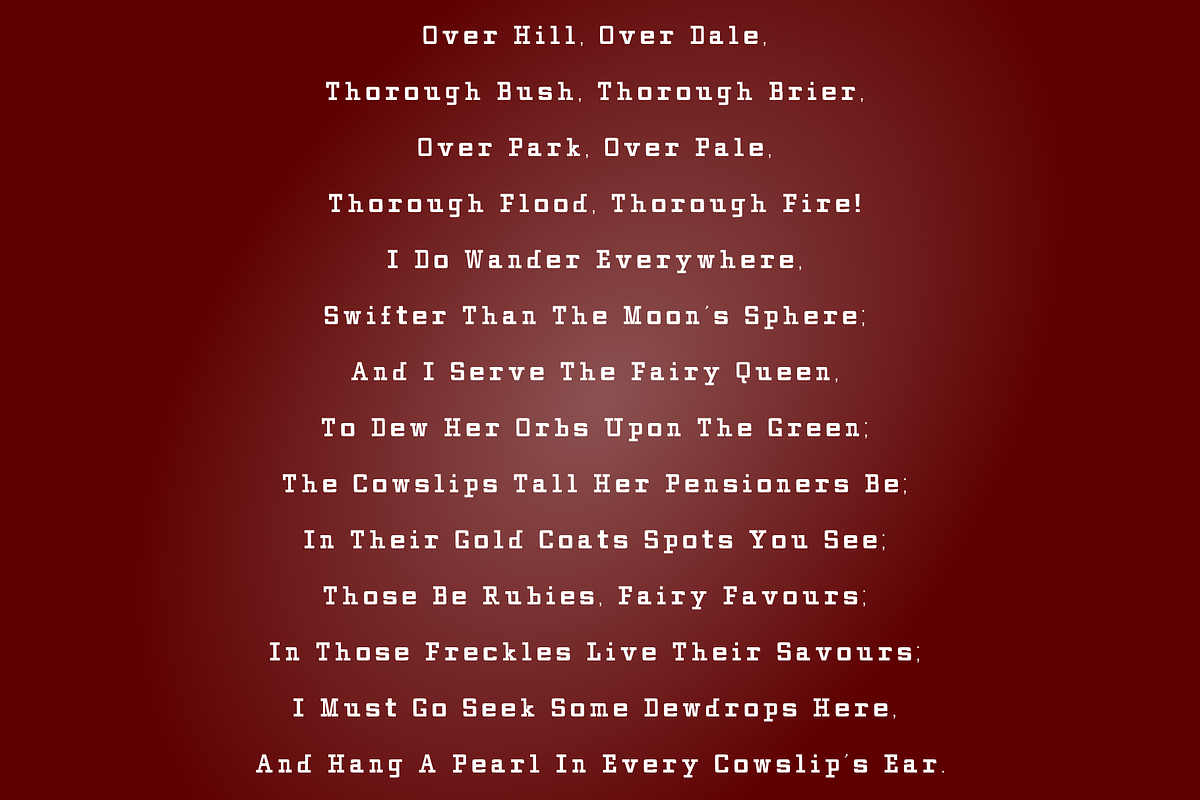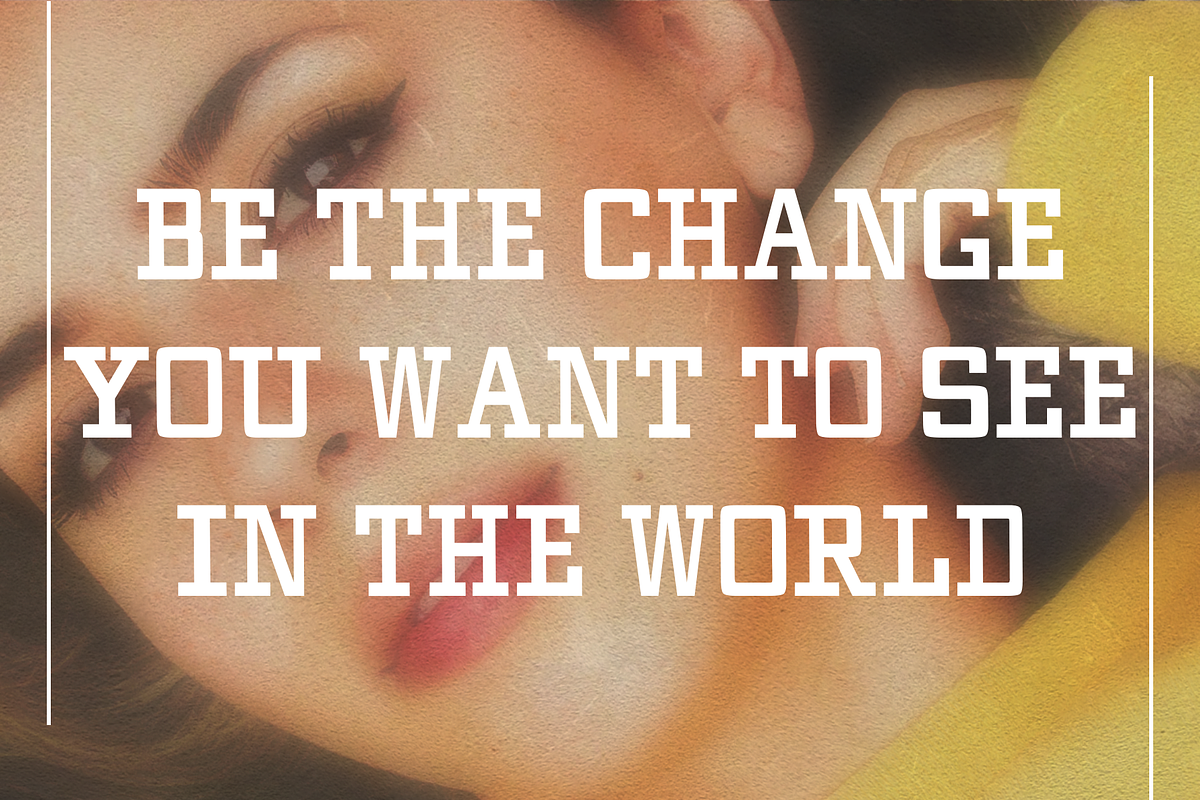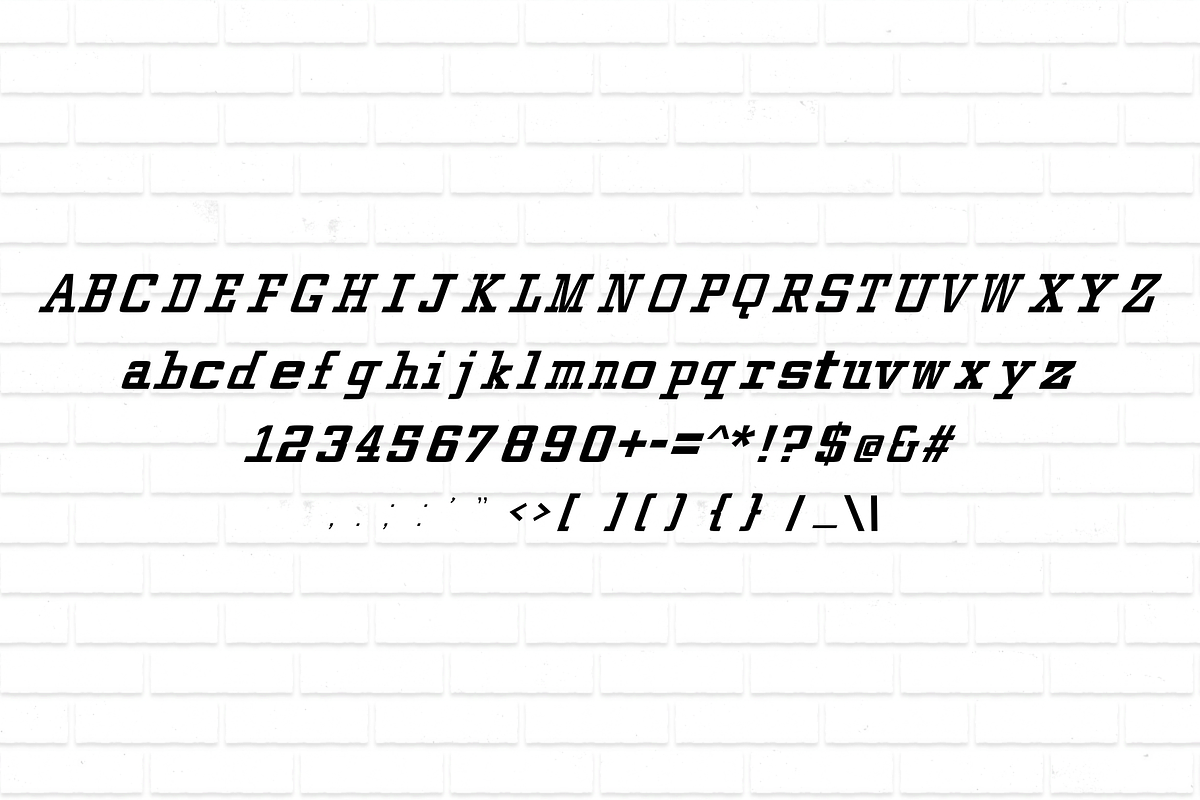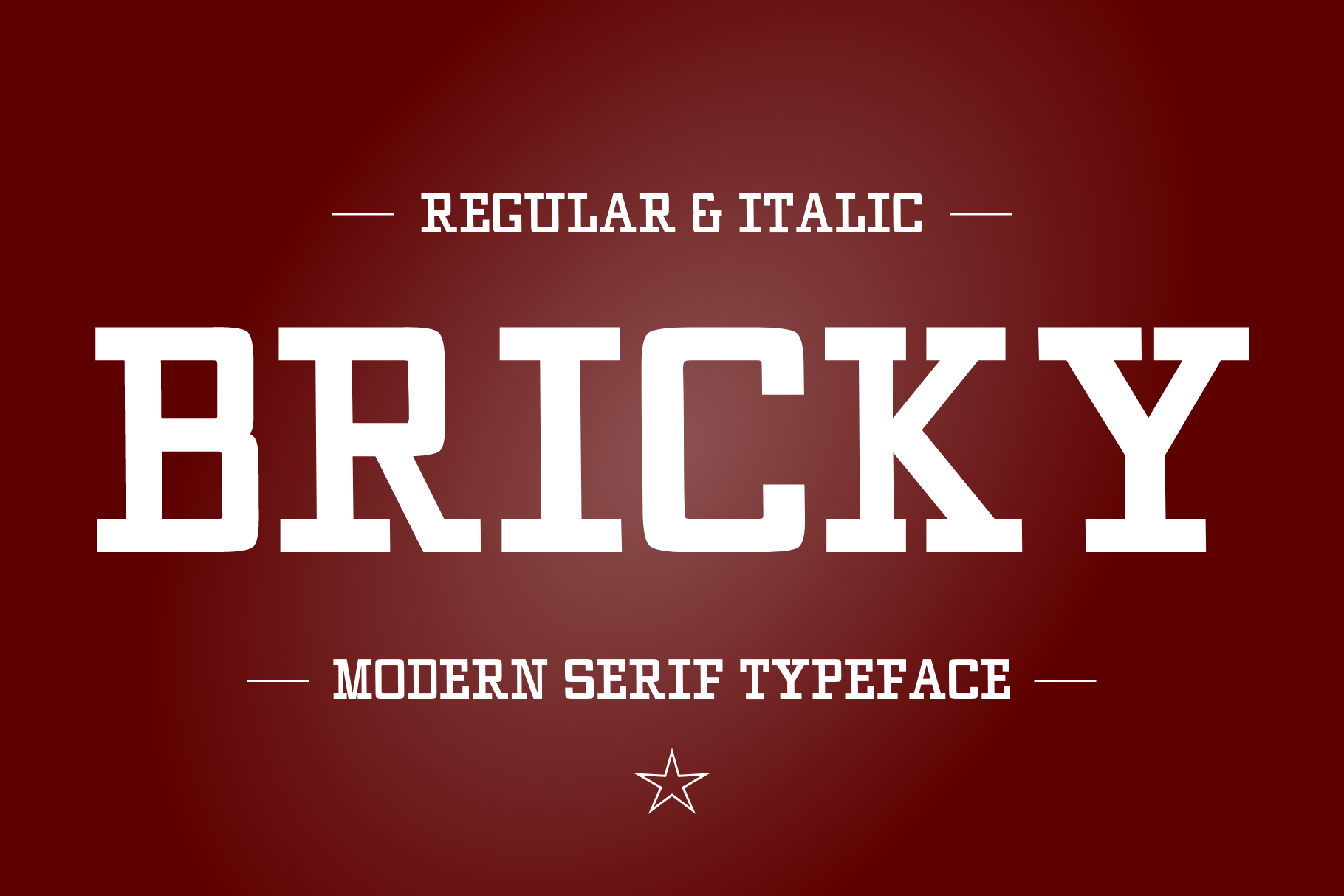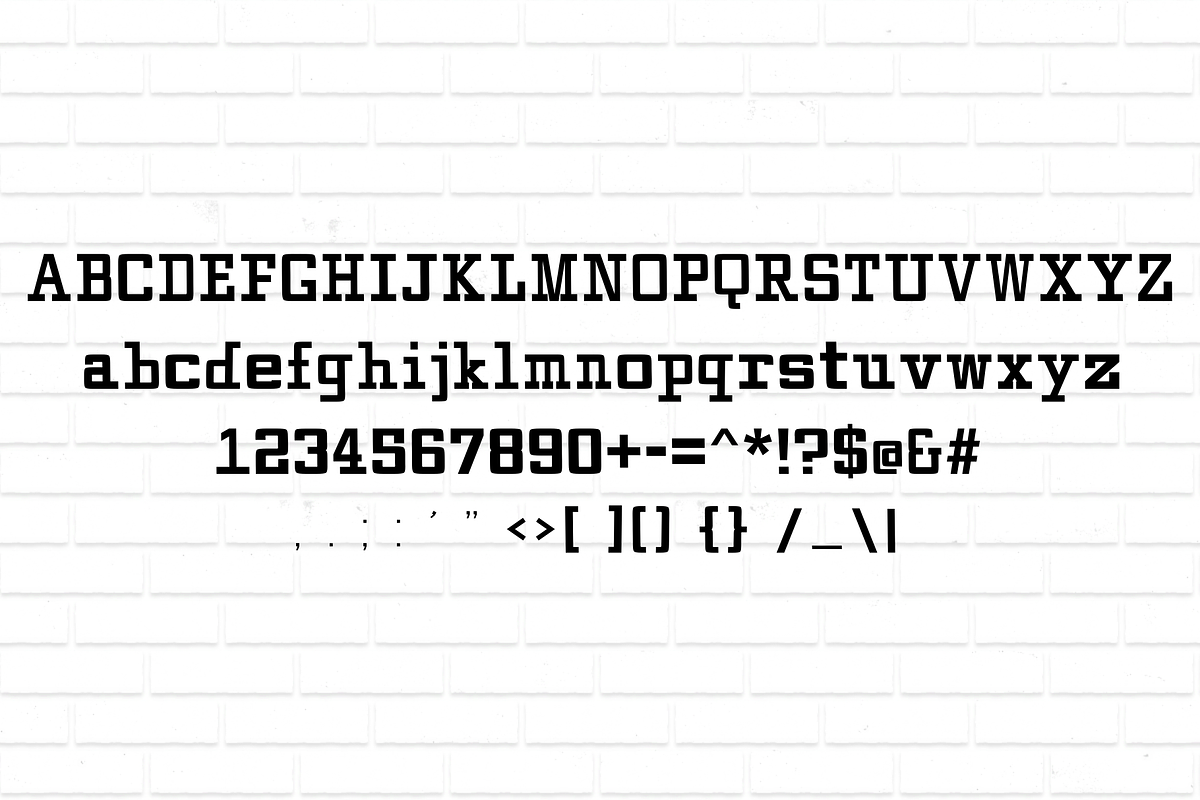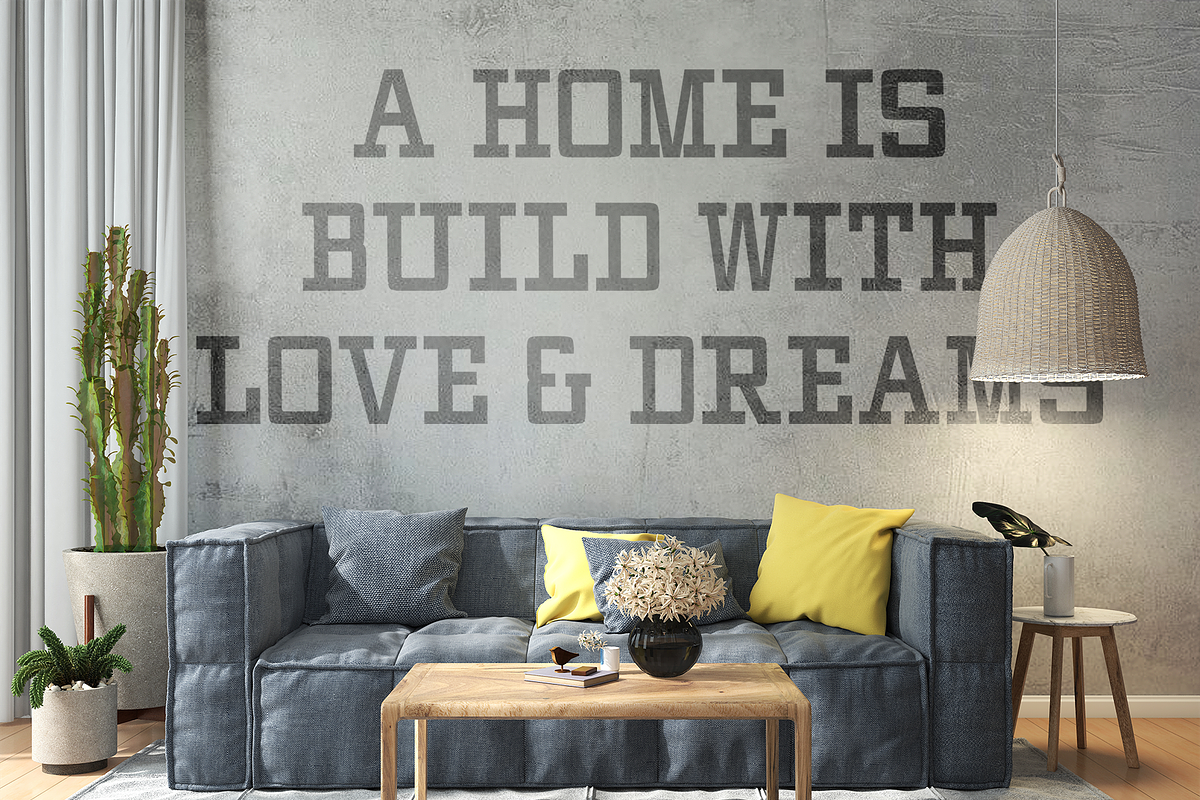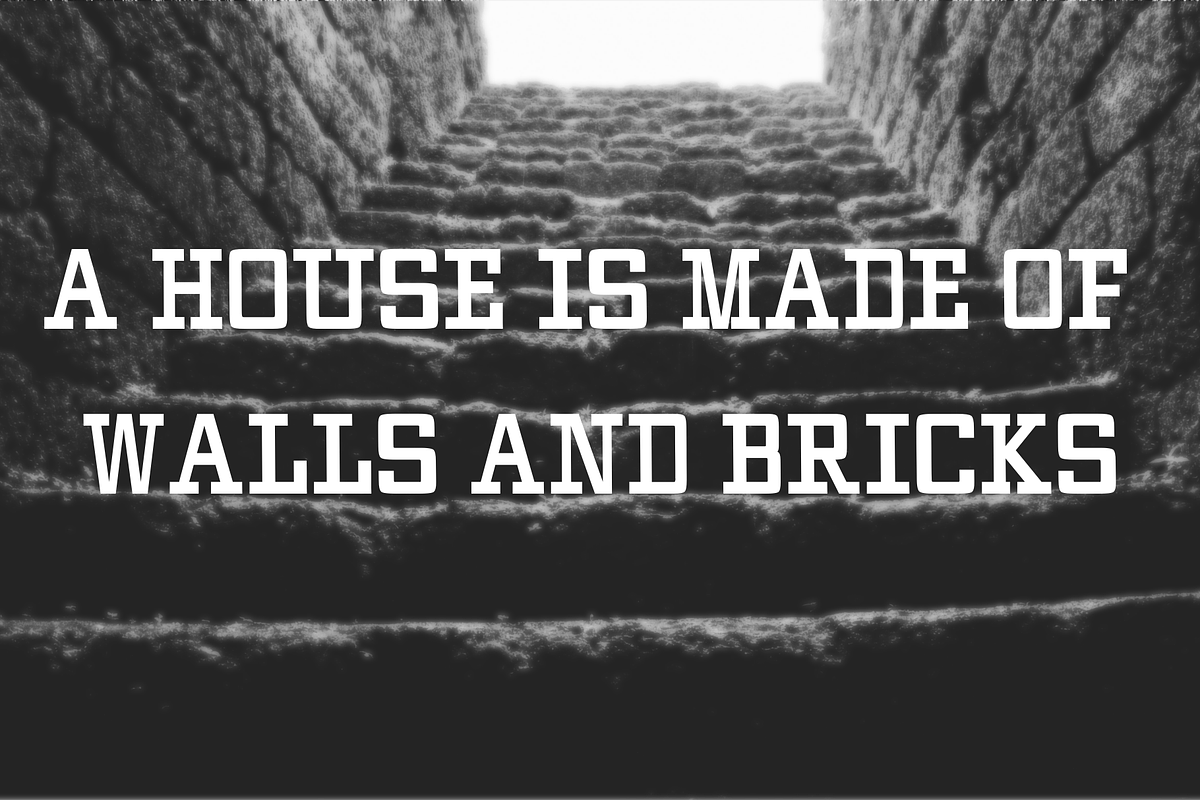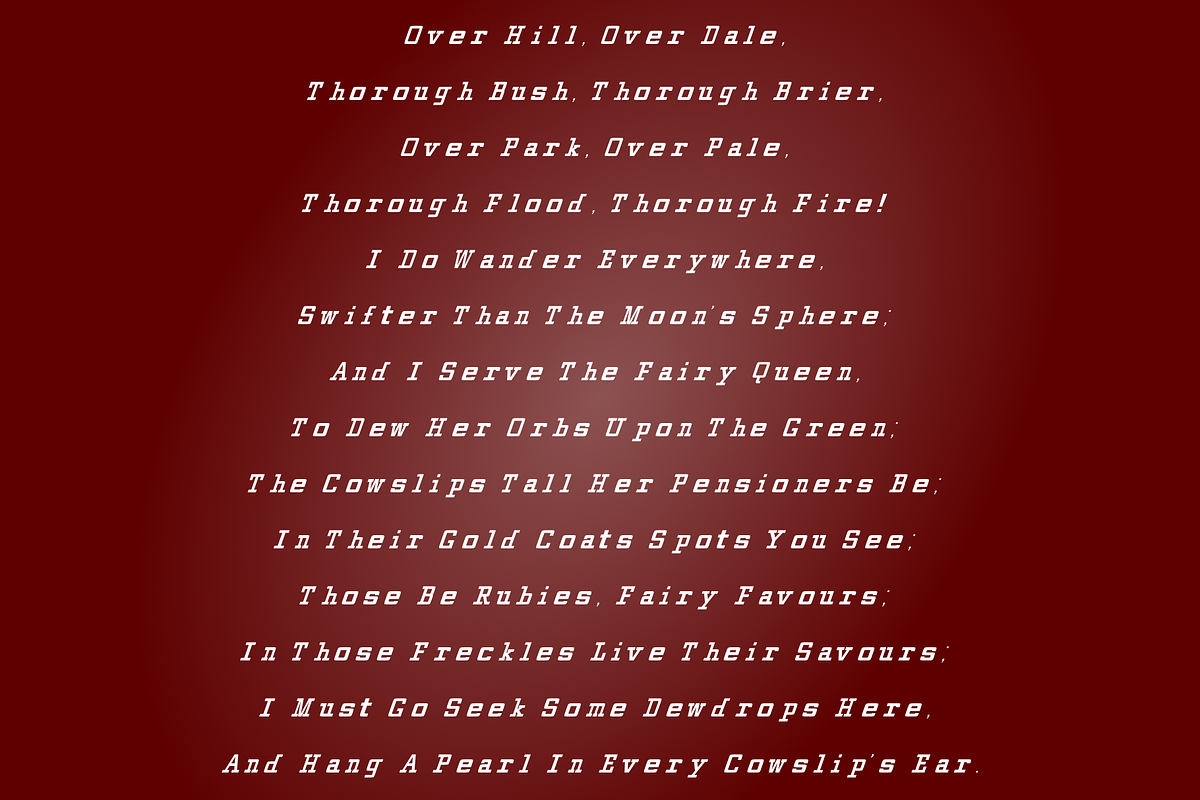
Bricky - Modern Typeface
Bricky - is a clean, elegant, modern typeface that you can use in packaging or branding, creating beautiful logos, headlines, quotes, and any other printed matter. I hope that the font will become your excellent assistant in the design of products.